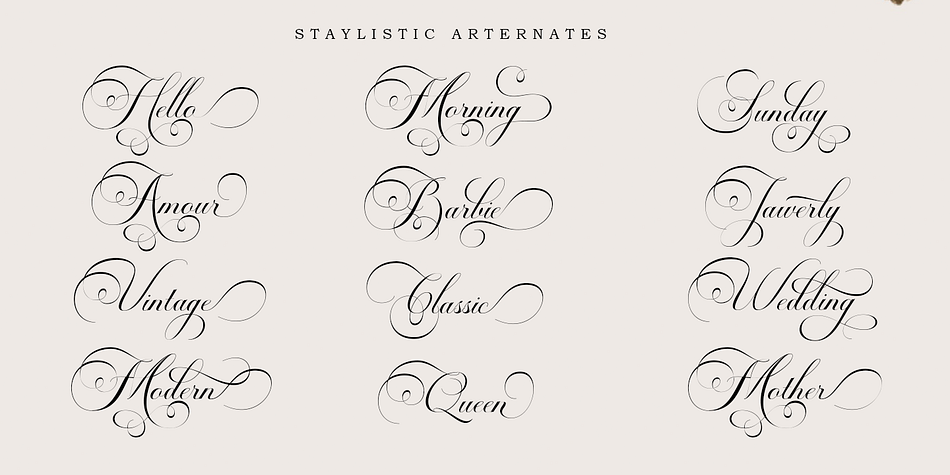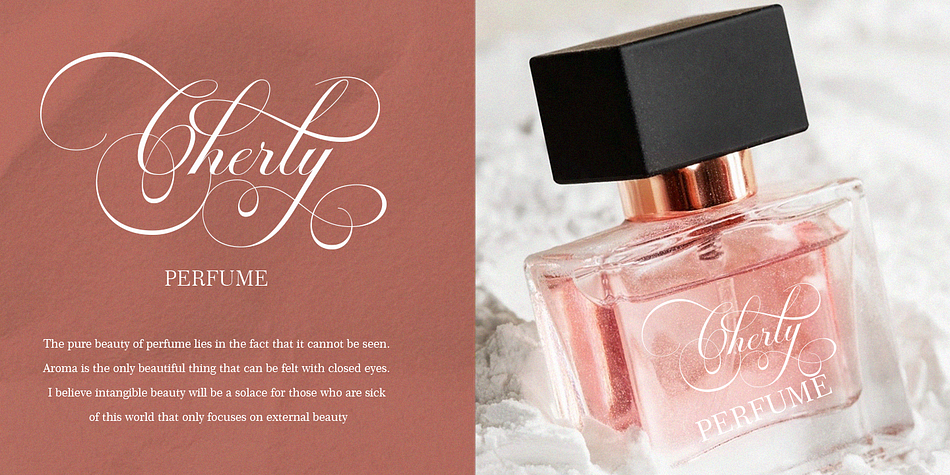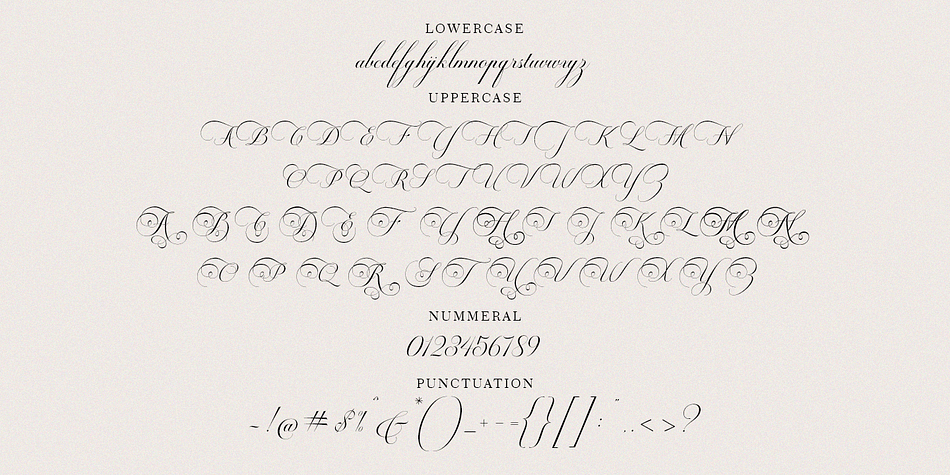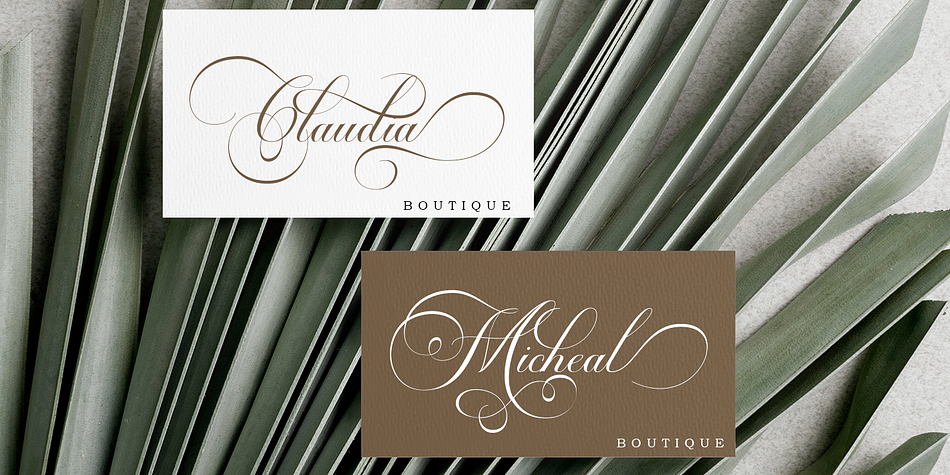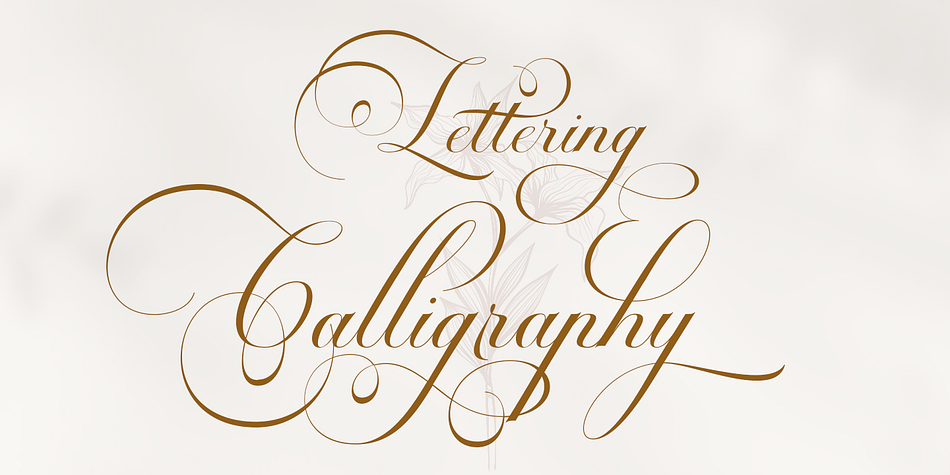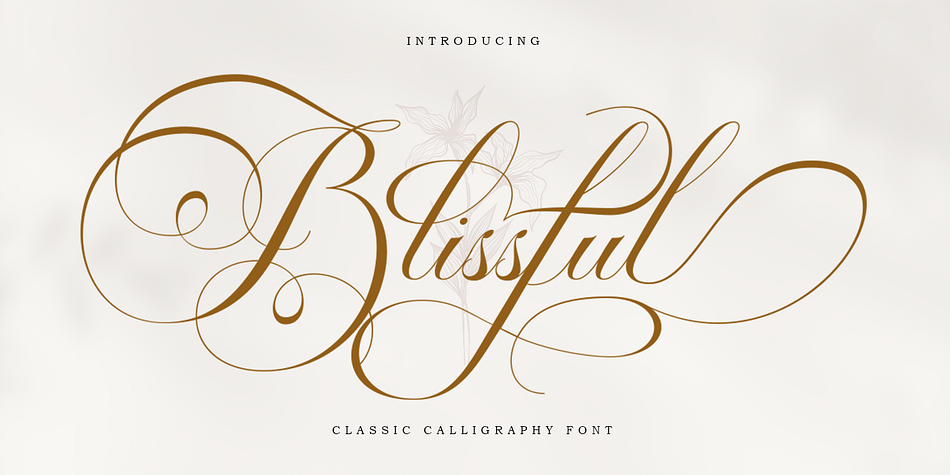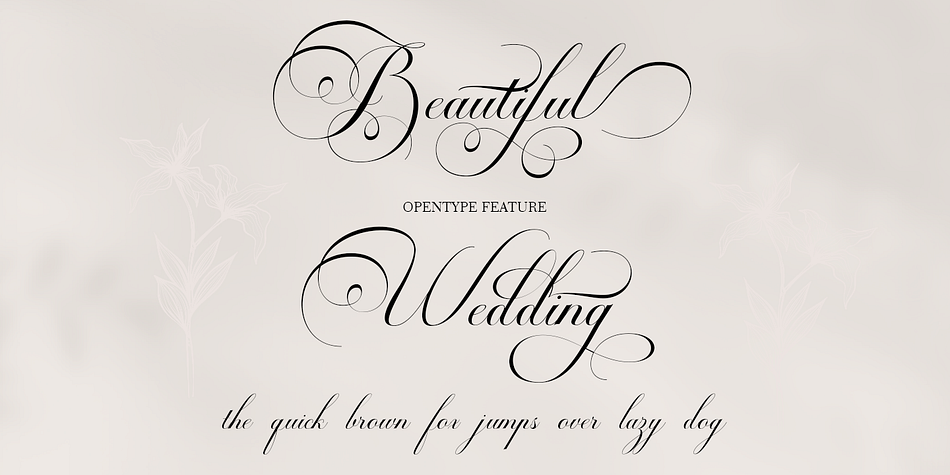
Blissful
Blissful is a modern calligraphy font family published by Romie Creative.
Blissful Classic is a calligraphy font that comes with exquisite changing characters, a kind of classic decorative copper script with a modern touch, designed with high details to bring out the elegance of the style. Blissful Classic Calligraphy Font is attractive because the typeface is smooth, clean, feminine, sensual, glamorous, simple and very easy to read, because of the many luxurious letter connections. I also offer a number of viable style alternatives for many letters. The classic style is very suitable to be applied in various formal forms such as invitations, labels, restaurant menus, logos, fashion, make up, stationery, novels, magazines, books, greeting/wedding cards, packaging, labels or all kinds of advertising purposes. .